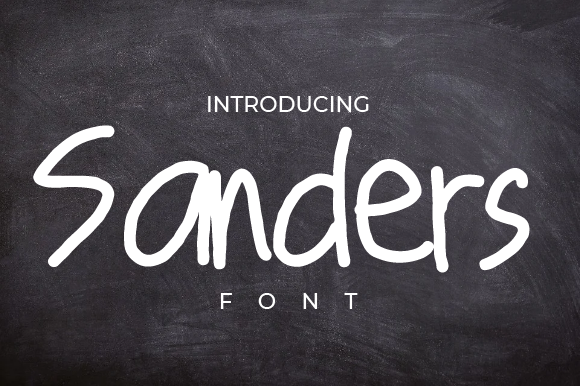
Introduction to Sanders Font
Have you ever stared at a blank canvas, trying to conjure up the perfect design for your creative project? You’ve got an idea, but it’s just not quite coming together. The solution might be simpler than you think – enter the enchanting Sanders Font, a high-quality handwritten font that’s sure to elevate your design to the next level.
This beautiful font has been carefully crafted to bring elegance and sophistication to any project, and with its transparent background, it’s perfect for layering and combining with other design elements. As a valuable resource for designers, the Sanders Font is a game-changer, and the best part? It’s available for free download, making it accessible to designers of all levels.
Key Features of Sanders Font
- High-quality design for creative projects, offering a unique and elegant style.
- Includes a transparent background, allowing for easy customization and integration into various designs.
- Features a large character set, including uppercase and lowercase letters, numbers, and punctuation marks.
- Perfect for a variety of creative projects, from logos and branding to typography and editorial designs.
Honest Review: Sanders Font
As a designer, I’ve had the pleasure of working with various fonts, and I’m excited to share my thoughts on the Sanders Font. This font has been a game-changer for my creative projects, offering a unique and high-quality aesthetic that elevates my designs to the next level.
One of the standout features of the Sanders Font is its versatility. It’s perfect for both modern and classic designs, making it a great addition to any project. The font is also highly customizable, allowing me to adjust the size, color, and style to fit my needs.
- High-quality design with a unique aesthetic
- Perfect for modern and classic designs
- Highly customizable
- Transparent background for easy design integration
What doesn’t work well: ⚠️
- Not suitable for very small text sizes due to its bold design
- May not be ideal for text-heavy designs
Overall, I’m thoroughly impressed with the Sanders Font. It’s a fantastic design resource that has become a staple in my creative projects. If you’re looking for a high-quality font that can add a touch of elegance to your designs, I highly recommend giving the Sanders Font a try.
Common Use Cases for Sanders Font
The Sanders Font is perfect for use in branding materials, such as business cards and logos, as well as in digital products, such as e-books and presentations. Its unique design and high quality make it a great choice for any creative project.